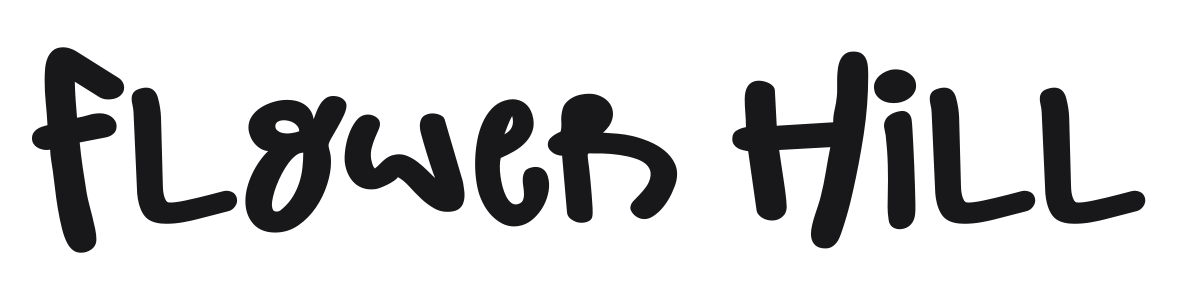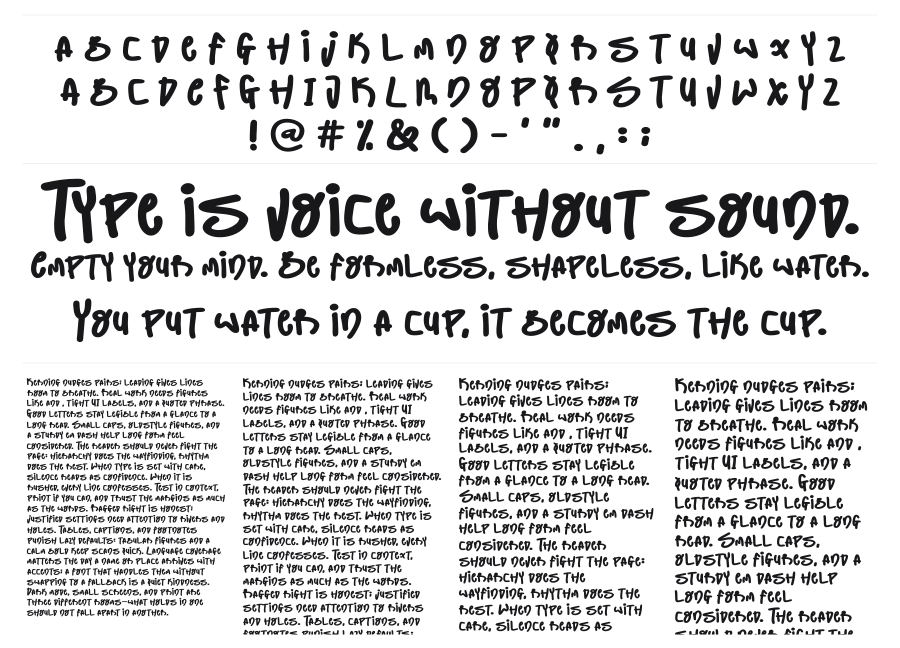
Flower Hill
Flower Hill is a bold, rounded brush script with a thick, hand-painted energy and distinctly playful personality. The characters bounce with irregular rhythm and chunky, club-like terminals that feel spontaneous without being sloppy. Great for packaging, logos, and headlines that need warmth and a human touch.